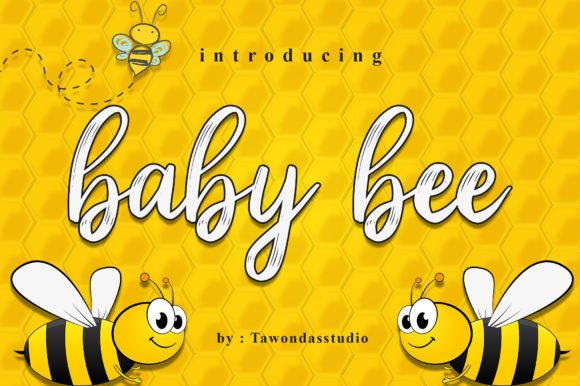
The Sweetest Script: Discovering Baby Bee Font
Have you ever stared at a blank page, waiting for inspiration to strike? The blank canvas stares back, taunting you to bring your creative vision to life. It was moments like these that led me to discover Baby Bee Font, a stunning script font that’s about to change the game for designers like you.
Baby Bee Font is a beautiful, elegant script font designed to add a touch of whimsy and sophistication to your designs. Whether you’re crafting wedding invitations, thank-you cards, or business cards, this font is sure to leave a lasting impression. Its versatility and charm make it a valuable addition to any designer’s toolkit, and its ease of use makes it accessible to designers of all levels.
With Baby Bee Font, the possibilities are endless. From elegant logos to heartfelt quotes, this font brings a handwritten touch to any design. Whether you’re a seasoned pro or just starting out, Baby Bee Font is sure to become your new go-to font for all your creative projects.
Baby Bee Font Key Features
- Font Family: Baby Bee Font is a unique, hand-drawn font designed for use in various digital and print media.
- Unique Characteristics: Baby Bee Font features a playful, cursive style with rounded edges and a soft, childlike feel, making it ideal for children’s products, educational materials, and family-related content.
- Character Set: The font includes a comprehensive set of characters, including uppercase and lowercase letters, numbers, punctuation marks, and special characters.
Designer Review: Baby Bee Font
The Baby Bee Font is a charming and whimsical typeface that brings a smile to my face. ✨ Its playful, handwritten feel is perfect for creating a child-friendly atmosphere in branding, marketing materials, or digital products. The font’s irregularities and cursive connections give it a sense of personality, making it a great choice for creating a brand that stands out from the crowd.
One of the standout features of the Baby Bee Font is its high level of customization. ✨ You can adjust the font’s width, slant, and spacing to suit your design needs. This level of control allows designers to create a unique and consistent look across all their materials.
However, there are some limitations to consider. ⚠️ The font may not be suitable for formal or professional applications, as its casual, handwritten feel may come across as unpolished. Additionally, the font’s irregularities can sometimes make it difficult to read, especially in small text sizes.
Overall, I think the Baby Bee Font is a great choice for designers looking to create a fun and playful brand identity. While it may not be suitable for all applications, its high level of customization and charming personality make it a valuable addition to any designer’s toolkit.
- Playful, handwritten feel
- High level of customization
- Irregularities can make it difficult to read in small text sizes
- May not be suitable for formal or professional applications
Practical Application Guide for Baby Bee Font
The Baby Bee Font is perfect for:
- Summer-themed designs and projects.
For optimal results, use the font in conjunction with bright colors, playful illustrations, and whimsical designs.